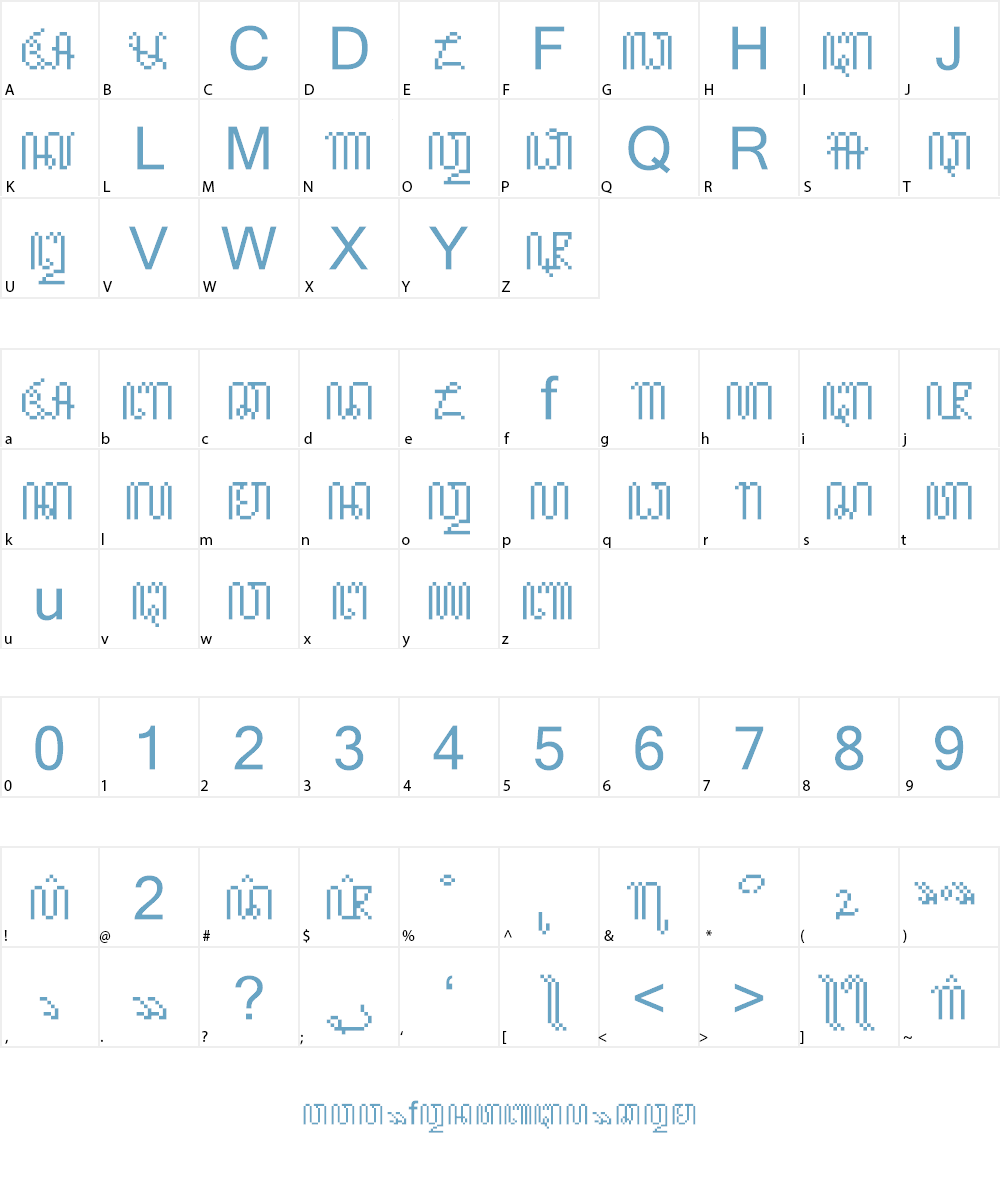
This is Javanese hieroglyphs pixel font.
"Ha Na Ca Ra Ka, Da Ta Sa Wa La, Pa Dha Ja Ya Nya, Ma Ga Ba Tha Nga" and other hieroglyphs.
TIPS:
If you want:
- 'ha na ca ra ka', just type the consonant 'h n c r k'
- 'da ta sa wa la' -> 'd t s w l'
- 'pa dha ja ya nya' -> 'p q j y z'
- 'ma ga ba tha nga' -> 'm g b v x'